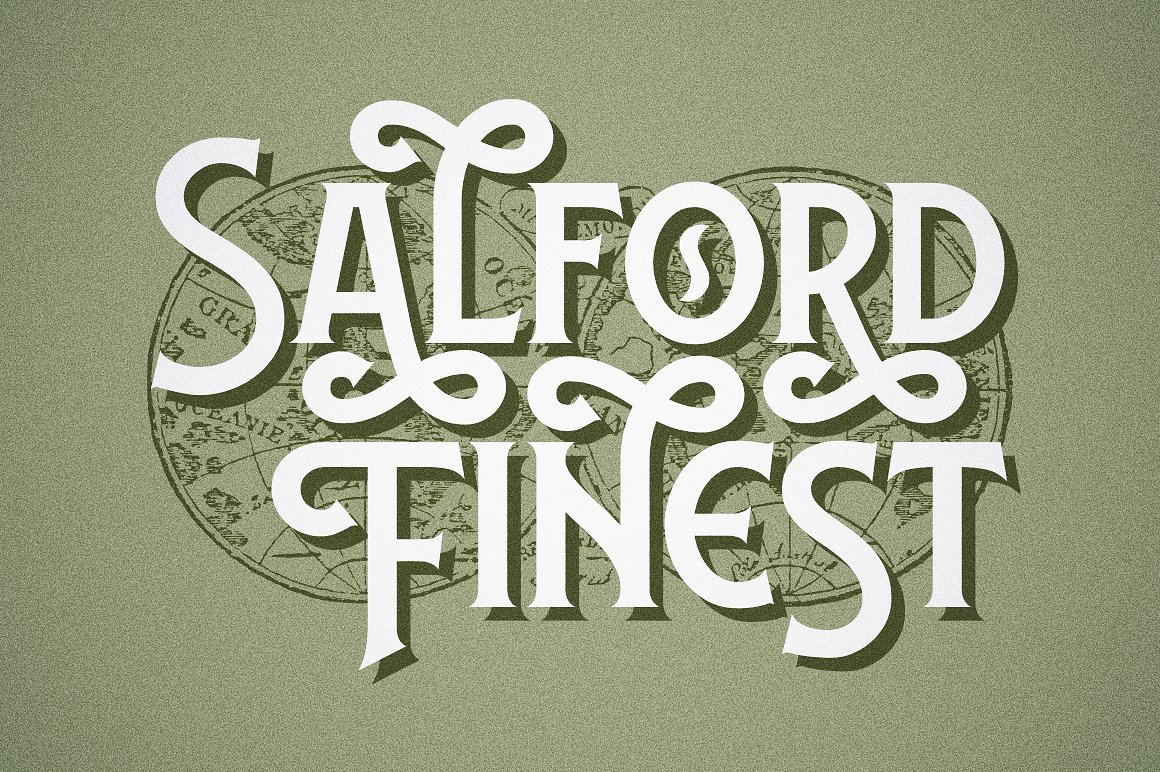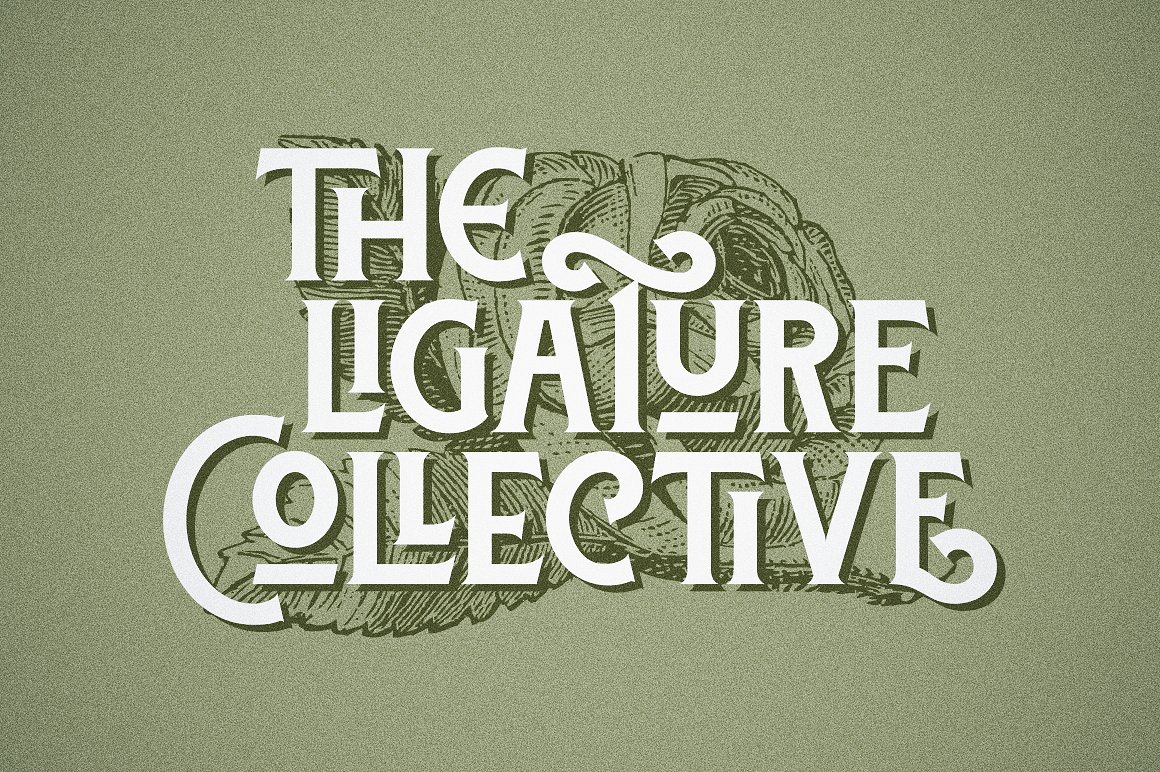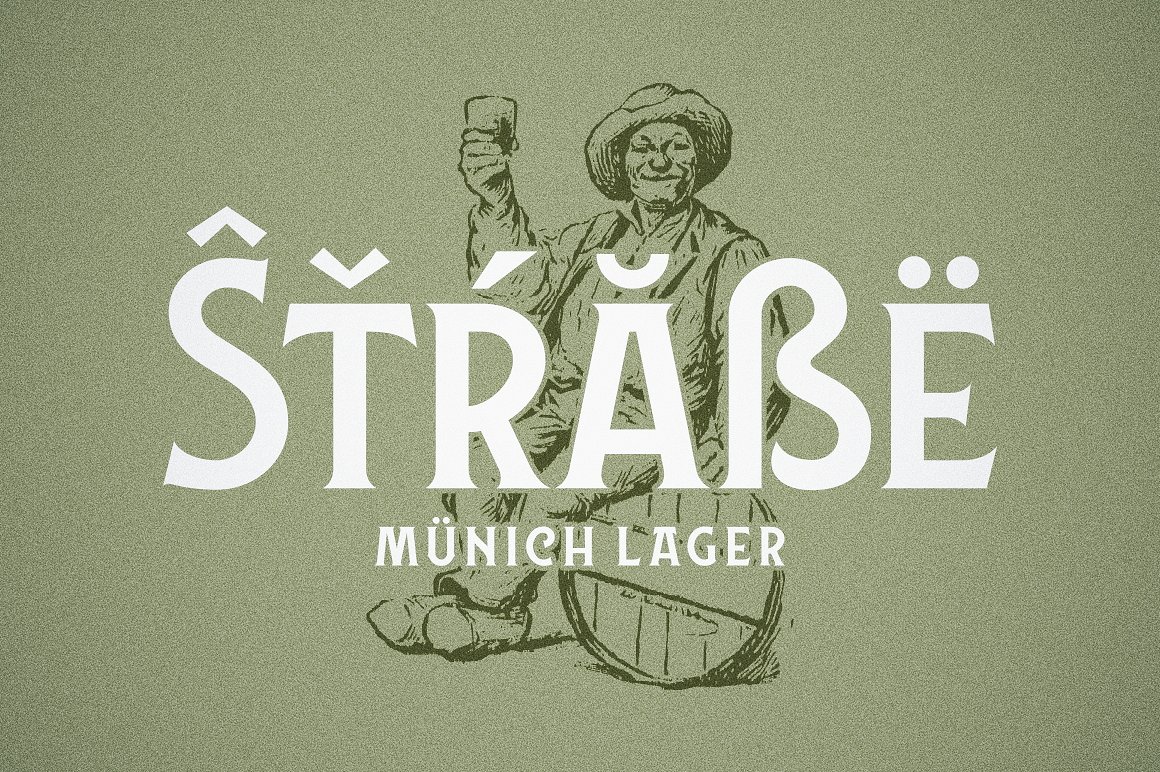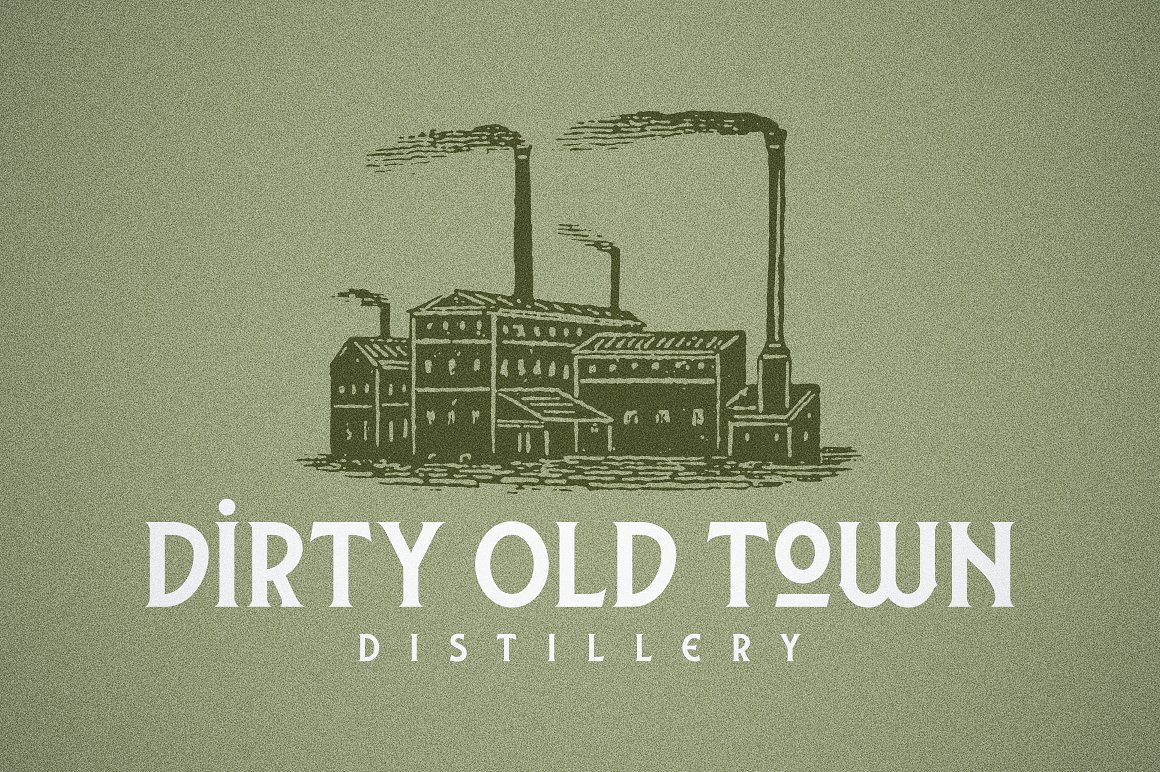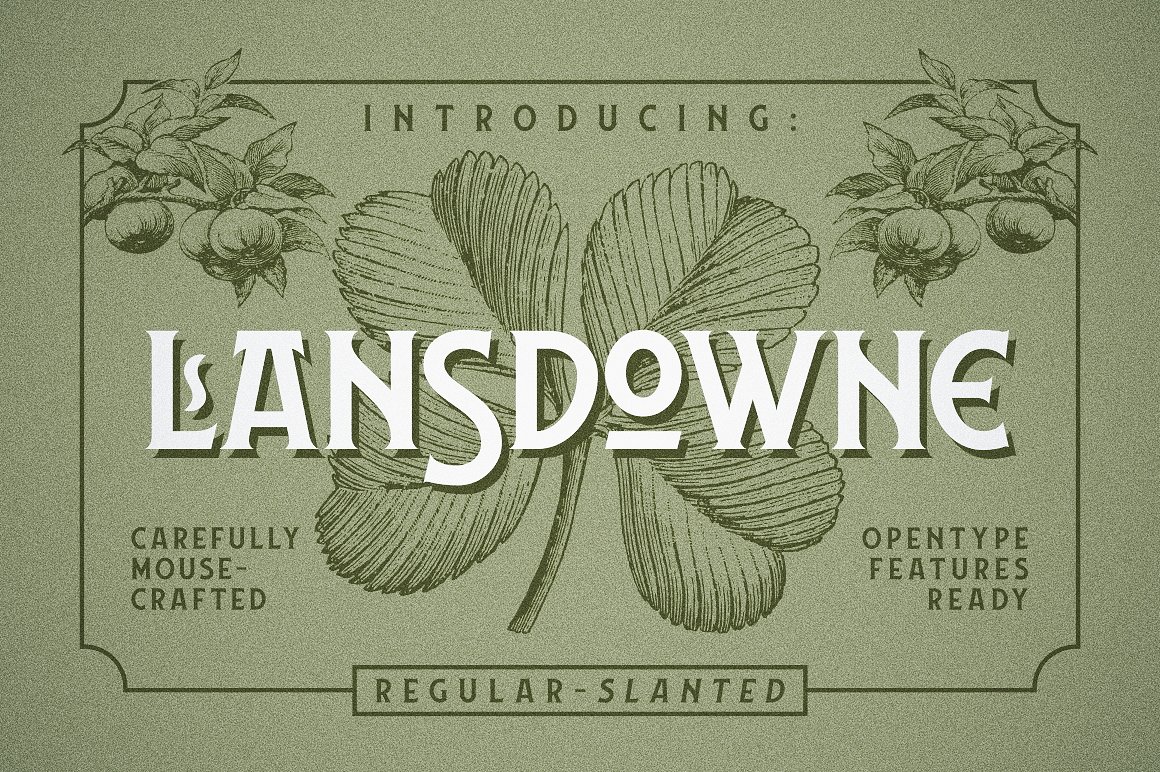
Lansdowne Typeface – Free Demo
Introducing Lansdowne Font. Vintage all-caps typeface. Perfect blend between clean and vintage themed typework, inspired by the old advertisement letters. Lansdowne’s 470+ glyphs give you strong, sharp, yet clean feels without sacrificing its vintage/classic touch. Mouse-crafted with passion to quench your drought of versatile classic typeface.